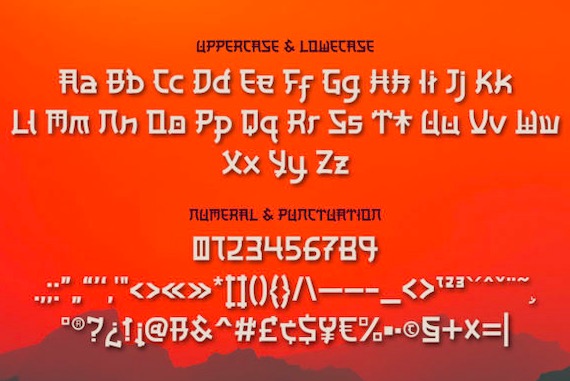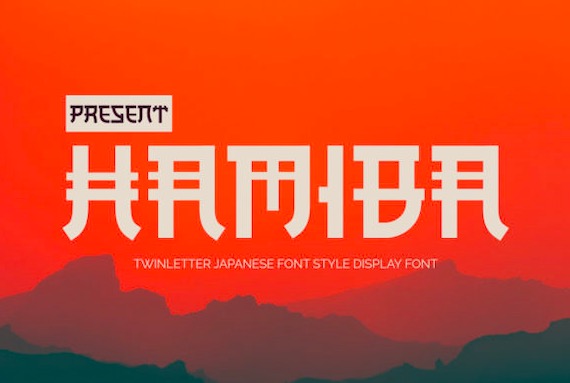
Hamiba Font
Hamiba Font is an incredibly unique Display typeface that was created and shared by twinletter. It has a classy Japanese style that is inspired by a unique and modern display font look. It will look stunning on any food menu, poster, flyer, or print. Use this font for your designs and explore its endless possibilities.